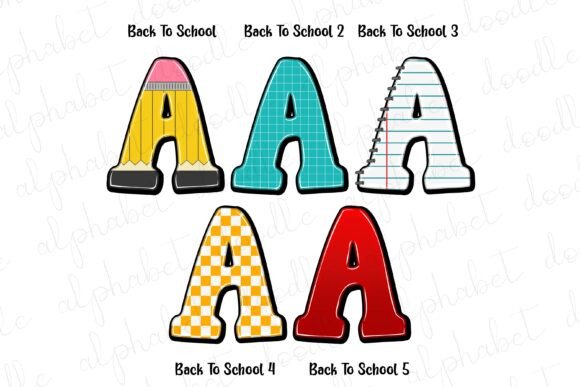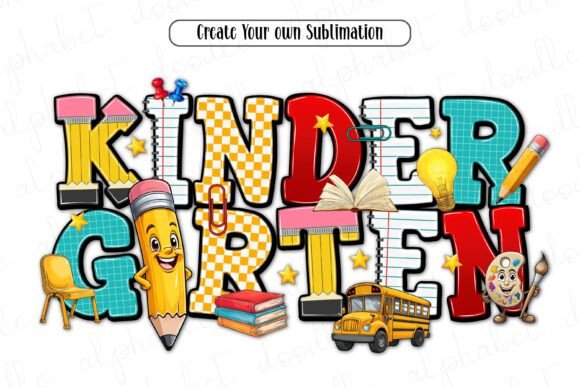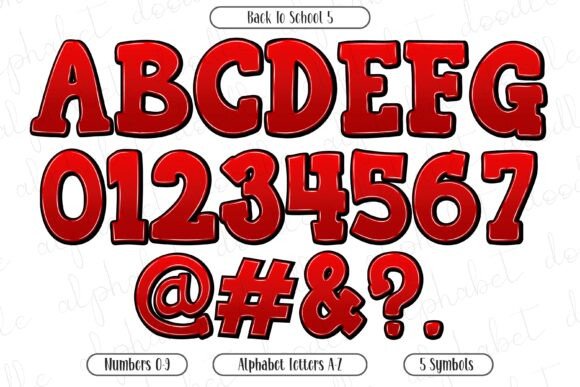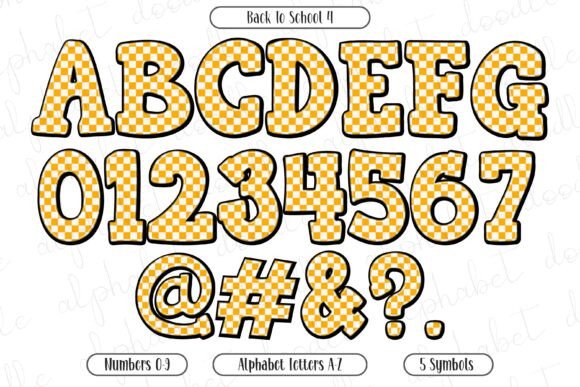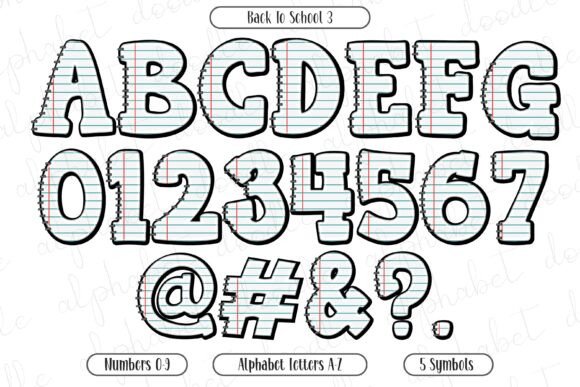
Getting Back in the Groove: The Ultimate Back to School Font
As a designer, there’s nothing quite like the feeling of cracking open a fresh notebook and setting up your workspace for a new project. The possibilities are endless, and the creative energy is palpable. But, let’s be honest, sometimes it takes a little something extra to get those creative juices flowing. That’s where the ‘Back to School Font’ comes in – a bold and audacious typeface that’s designed to capture your attention and elevate your designs.
This vibrant font is the perfect companion for any creative venture, from instructional materials for kids to whimsical projects that bring a touch of fun and learning to the forefront. Its unique design and mesmerizing charm make it a valuable addition to any designer’s toolkit, offering an irresistible appeal that propels your designs from the mundane to the magnificent.
Back to School Font Key Features
- Font Family: A custom-designed font family with a playful, educational theme, featuring uppercase and lowercase letters, numbers, and punctuation marks.
- Unique Characteristics: Features a distinctive, hand-drawn style with subtle texture and imperfections, giving it a unique, authentic feel.
- Language Support: Supports multiple languages, including English, Spanish, French, German, Italian, and more, making it a great choice for multilingual applications.
Designer Review: Back to School Font
I recently had the chance to play around with the ‘Back to School Font’, and I must say it’s an interesting choice for a font. ✨ The font’s playful and quirky nature makes it perfect for creating attention-grabbing titles and headings, especially in the education or summer theme sectors.
The font’s wide range of characters and glyphs allows for some fun and creative uses, such as adding cartoon-style elements or making text more dynamic. ✨ However, I do think that the font’s overall aesthetic can be a bit overwhelming if not used carefully. It’s definitely a font that’s meant to be used in moderation.
Pros and Cons:
- ✨ Playful and quirky design makes it perfect for creative projects
- ✨ Wide range of characters and glyphs for creative uses
- ⚠️ Can be overwhelming if not used carefully
- ⚠️ Limited use in formal or professional settings
Overall, I think the ‘Back to School Font’ is a great choice for designers looking to add some personality to their projects. However, it’s not a font that I’d recommend for every situation. With some careful consideration and use, this font can really make a project pop.
The Back to School Font is ideal for creating educational materials, such as:
– School newsletters
– Teacher handouts
– Student projects
– Educational posters
– Social media graphics
For the best results, use the Back to School Font in combination with other educational-themed graphics and colors. Experiment with different font sizes and styles to create a visually appealing design.